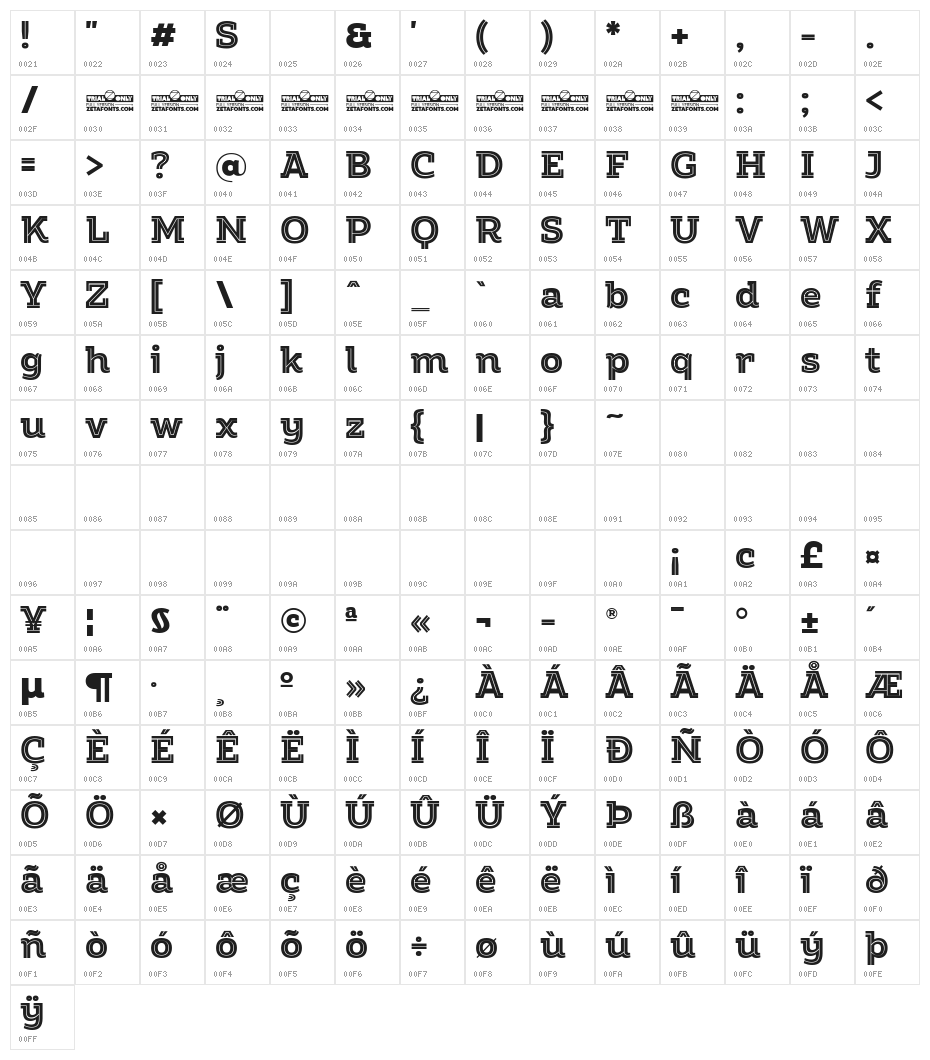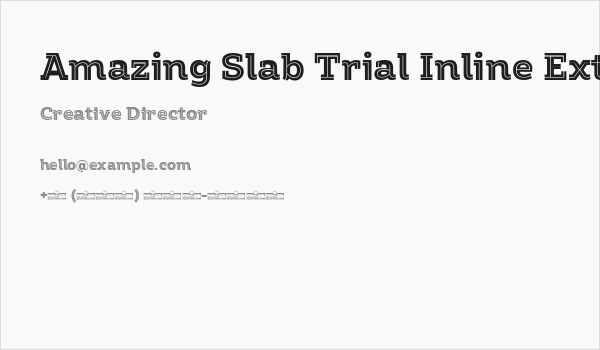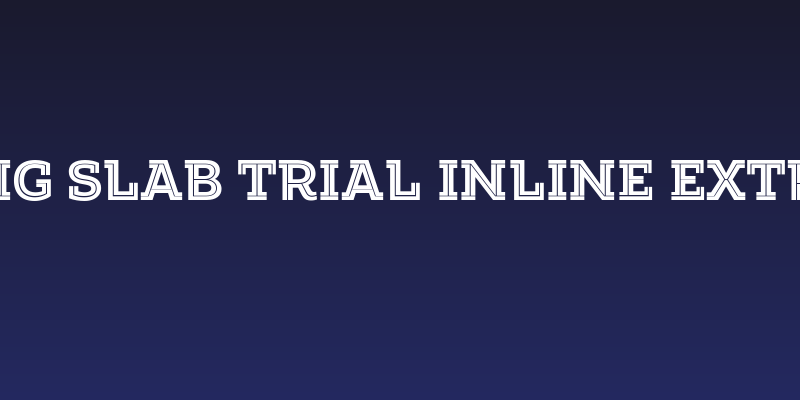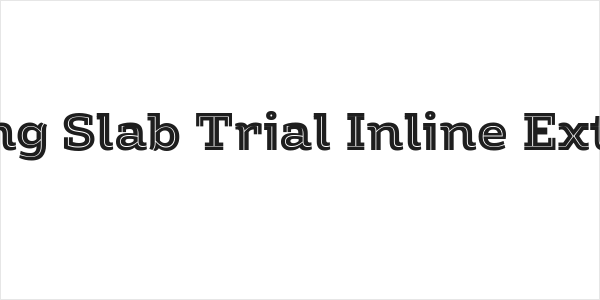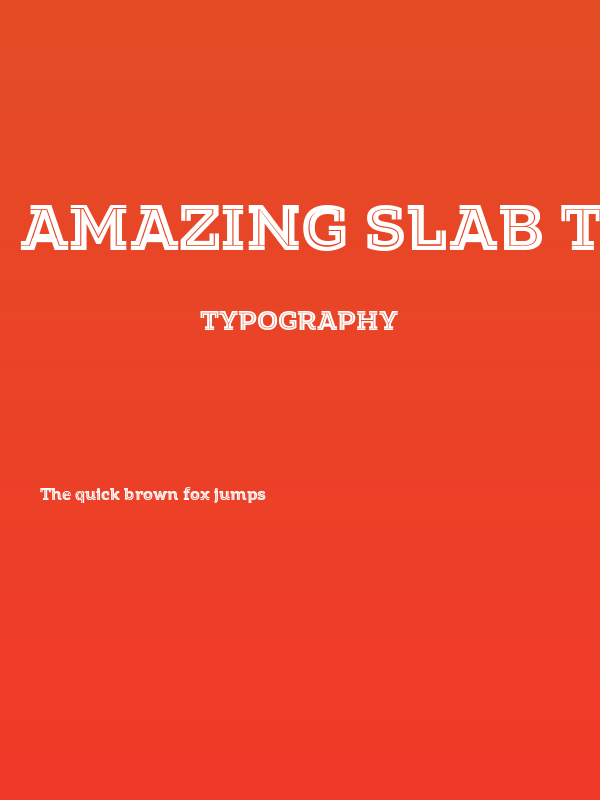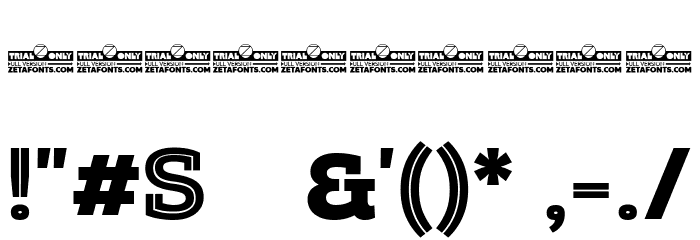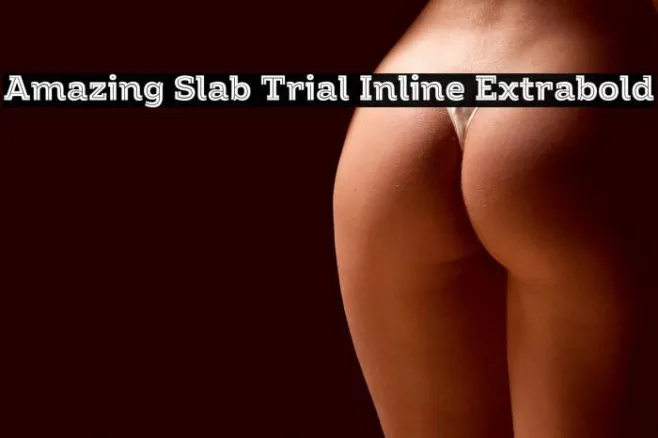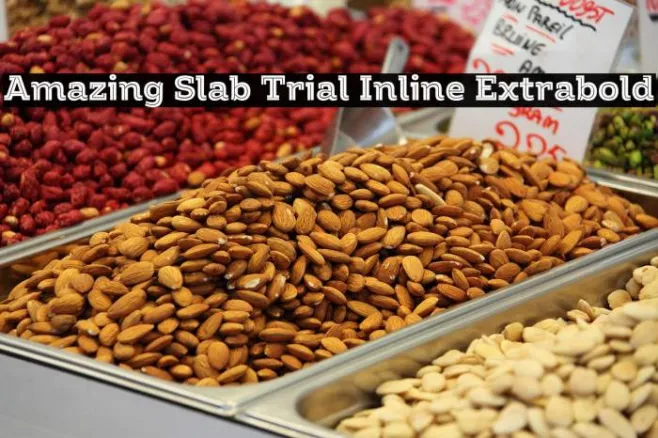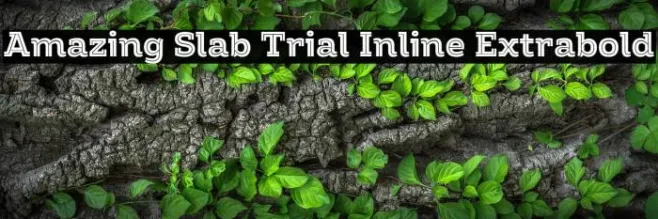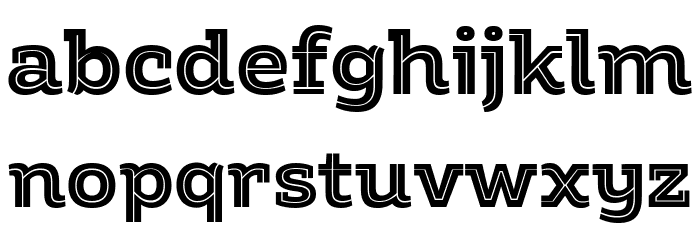
Amazing Slab Trial Inline Extrabold Font
Amazing Slab Trial Inline Extrabold Description
This font features a bold and striking slab serif design with inline detailing that adds a unique touch to its overall appearance. The uppercase and lowercase letters maintain a consistent weight, providing a strong visual impact. The inline style gives each character a dimensional effect, enhancing its decorative appeal. The numerals and special characters are designed to match the boldness of the alphabet, ensuring uniformity across all glyphs. This font is ideal for projects that require a bold statement, combining traditional serif elements with modern design aesthetics.
| Proposed Projects | Ideal for headlines, posters, branding, and any design requiring a bold, decorative typeface. |